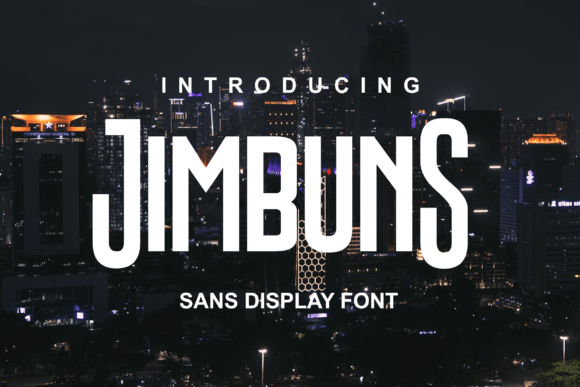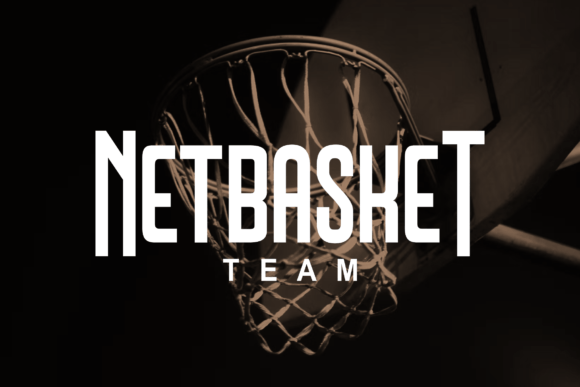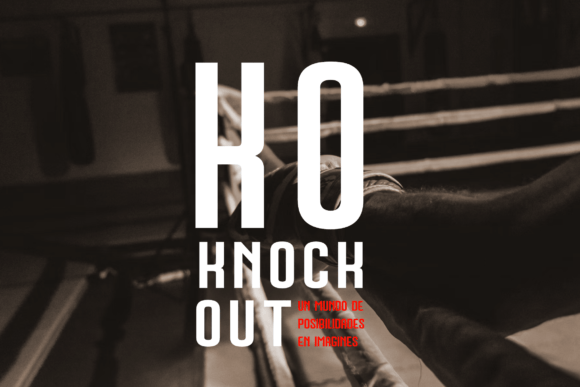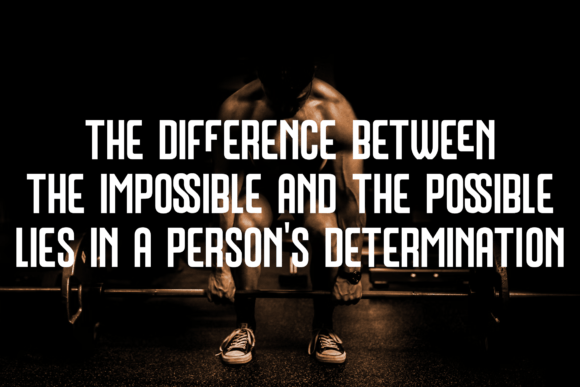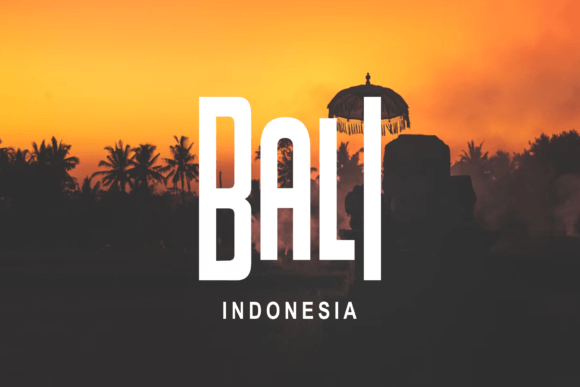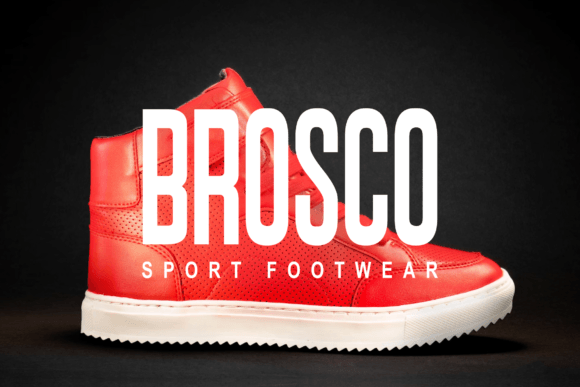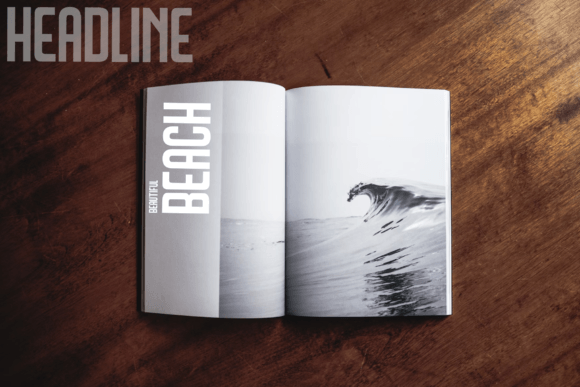
Unlock the Power of Impactful Design with Jimbuns Font
Have you ever stared at a blank page, trying to come up with the perfect title for your next project? The words just won’t come, and you’re left feeling stuck. But what if you had a font that could help you break through the creative block and make a lasting impression? Enter Jimbuns, a dynamic sans-serif font designed to deliver impactful visuals and take your designs to the next level.
As a designer, you know the importance of selecting the right font to convey your message. That’s why Jimbuns Font is a valuable addition to any design toolkit. With its all caps style and alternate glyphs, Jimbuns Font offers unparalleled versatility and creative possibilities. Whether you’re crafting bold titles or commanding attention with your designs, Jimbuns Font is the perfect choice for uncompromising style and versatility.
- Unique Characteristics: Designed with a unique, modern aesthetic, featuring clean lines and subtle curves
Jimbuns Font Review
I recently had the chance to work with Jimbuns Font, and I’m excited to share my honest thoughts on this unique font.
- Expressive Character Shapes: Jimbuns Font features some really interesting and expressive character shapes that can add a lot of personality to your designs.
- Good Legibility: While it’s not a super clean font, Jimbuns is surprisingly legible even at smaller sizes.
- Unique Feel: The font has a distinct feel to it that can be really effective in the right context.
- Limited Font Weights: Jimbuns Font only comes in a few different weights, which can make it harder to create a cohesive look.
- Not Ideal for Body Text: While it’s okay for headings or titles, Jimbuns might not be the best choice for body text due to its irregular shape and limited legibility.
- Lack of Consistency: Some characters feel a bit inconsistent with the rest of the font, which can be jarring at times.
Jimbuns Font is a fun and unique addition to any designer’s toolkit. While it may not be the best choice for every project, it can be a great option when you’re looking to add some personality and flair to your designs.
Tips for Getting the Most Out of Jimbuns Font
To get the most out of Jimbuns Font, use it for:
- Casual, handwritten text.
- Adding a personal touch to your designs.
- Creating unique and eye-catching titles.
Jimbuns Font is commonly used for:
- Food and drink branding.
- Handwritten-style invitations.
- Personalized greeting cards.
Alternatives to Jimbuns Font
Great Vibes Font is a modern, elegant script font suitable for designs that require a touch of sophistication and elegance. It is ideal for use in branding, packaging, and advertising materials. When to use: For creating a luxurious and high-end feel in your designs.
Comparison: Great Vibes Font is more refined and polished compared to Jimbuns Font, which has a more playful and casual feel. Great Vibes Font is also more versatile and can be used in a wider range of applications.
Carolyna Pro Font is a beautiful, modern script font with a touch of elegance and sophistication. It is ideal for use in branding, packaging, and advertising materials. When to use: For creating a professional and high-end feel in your designs.
Comparison: Carolyna Pro Font is more refined and polished compared to Jimbuns Font, which has a more playful and casual feel. Carolyna Pro Font is also more versatile and can be used in a wider range of applications.
Alex Brush Font is a beautiful, elegant script font with a touch of sophistication and elegance. It is ideal for use in branding, packaging, and advertising materials. When to use: For creating a luxurious and high-end feel in your designs.